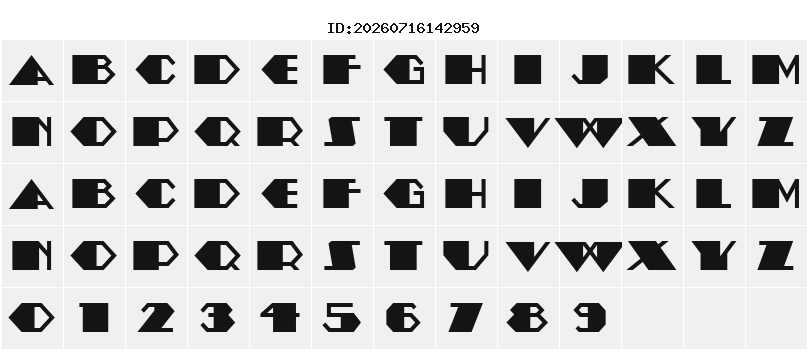
• Font Name: AmstelHeavyNF
• Full Font Name: AmstelHeavyNF
• Version: Version 1.00 11/2/2002
• Designer: Nick Curtis
• Manufacturer: Nick's Fonts
About AmstelHeavyNF.ttf
AmstelHeavyNF.ttf is a modern, elegant sans-serif font designed for ultimate readability and visual harmony. Perfect for branding, headlines, web design, and print materials.